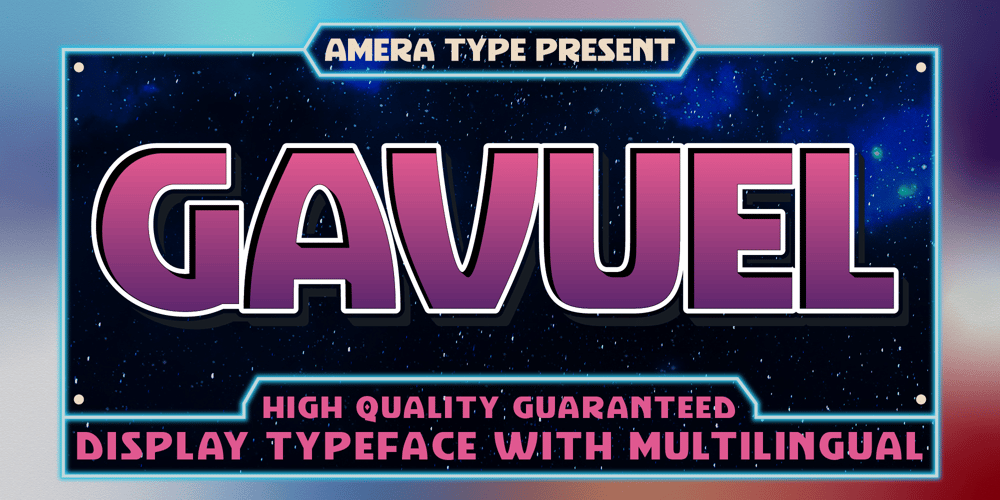
Gavuel
Gavuel font
Gavuel Font Family was designed by Cahyadi Ikhsan and published by Amera Type. Gavuel contains 1 styles and family package options. Introducing Gavuel font with a unique, bold and wide sans serif look. The carefully crafted nodes and each line can create a luxurious look for high-level graphic brandingGavuel will be a perfect choice for labels, packages, covers, headlines, etc